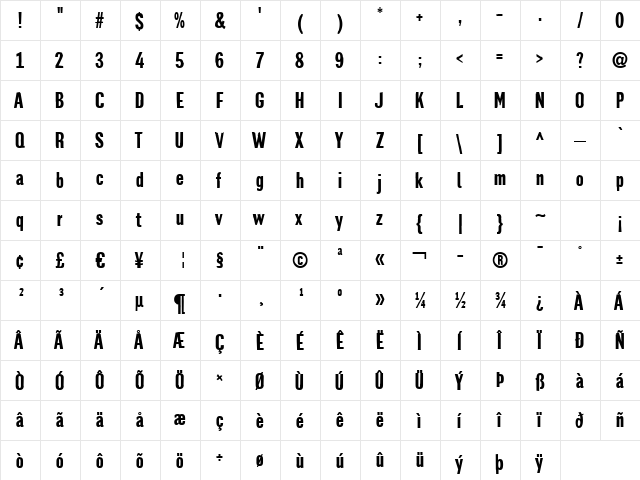
GazzRegular Regular
Design Context for GazzRegular Typeface
GazzRegular offers clean, dependable letterforms without strong stylistic allegiance, making it a practical choice for designers who need flexibility.
Pro Tip: Pair GazzRegular with a font of contrasting weight or personality to build a more expressive typographic hierarchy.